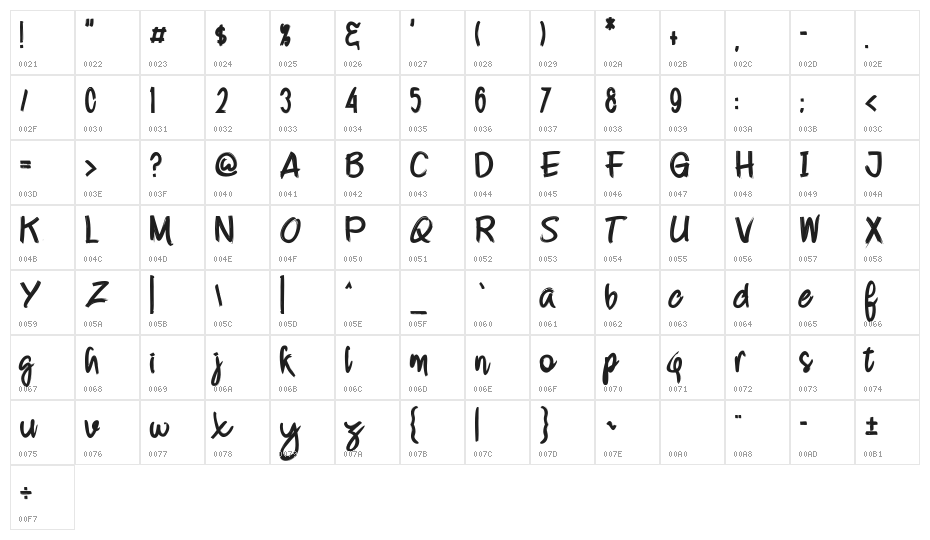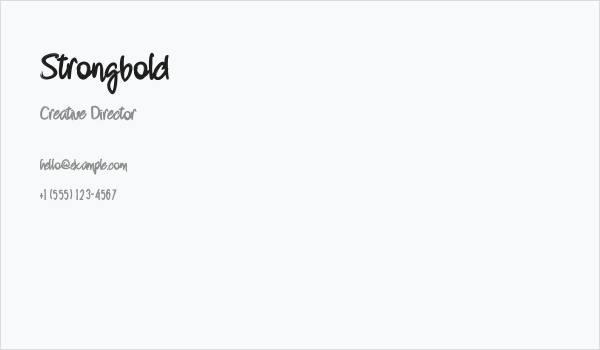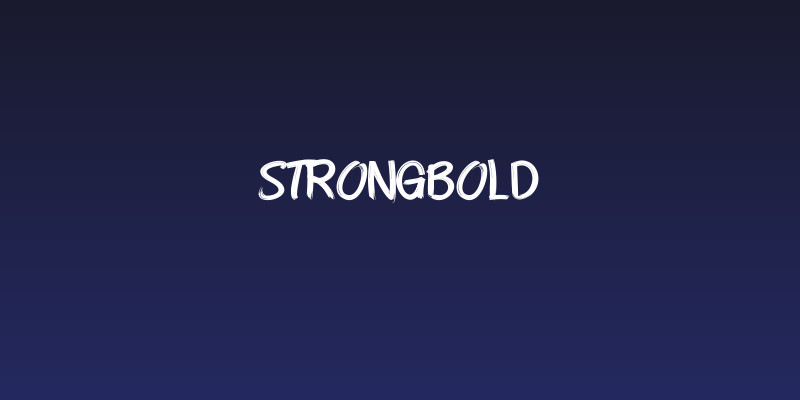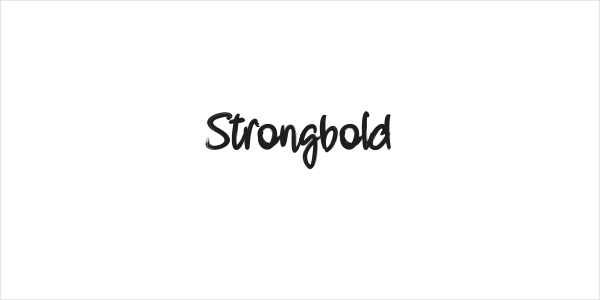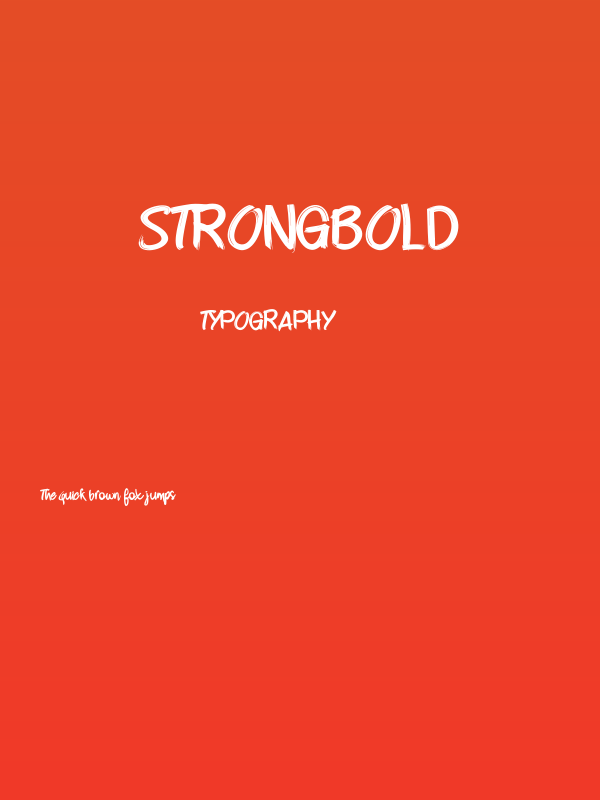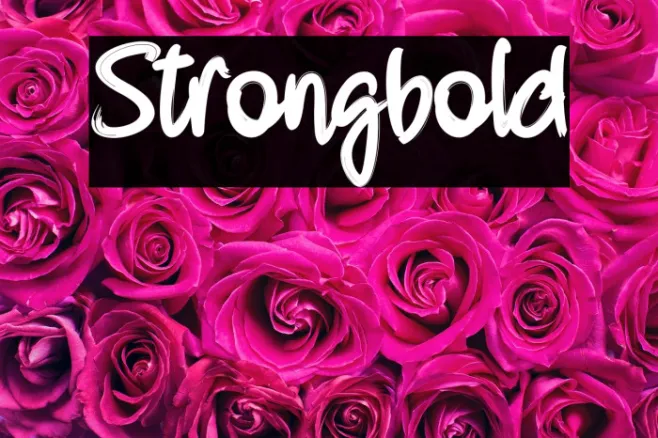
Strongbold Font
Strongbold Description
This font features a bold, brush-like style with dynamic strokes that convey a sense of energy and movement. The uppercase letters are robust and commanding, while the lowercase letters maintain a playful and artistic flair. Numbers and special characters are consistent with the overall expressive design, making them stand out with their unique brushstroke appearance. The font's organic and hand-drawn quality gives it a distinctive personality, ideal for projects that require a touch of creativity and boldness.
| Proposed Projects | This font is perfect for creative projects such as posters, logos, branding, and social media graphics where a bold and artistic statement is needed. |